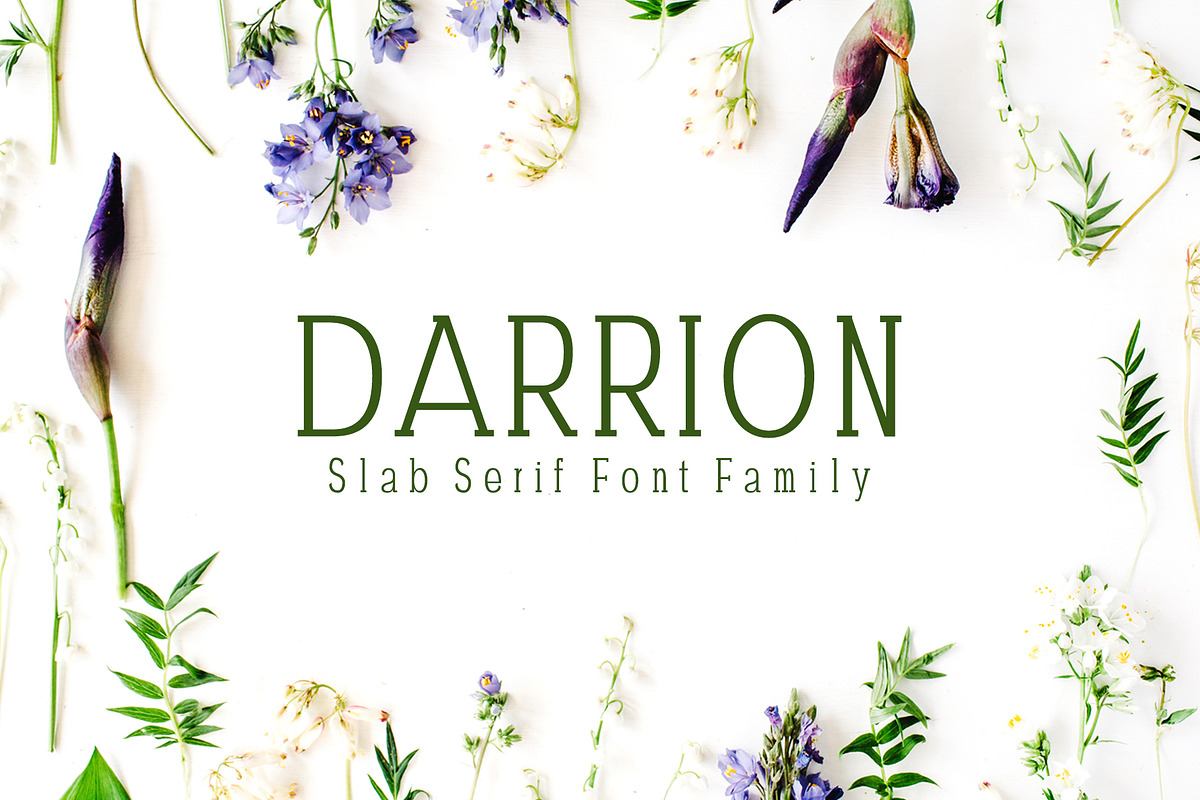
Darrion Slab Serif Font Family Free Download is a versatile and contemporary slab serif typeface designed to bring strength and readability to your designs. Featuring a range of weights, it is perfect for creating powerful headlines, branding, editorial layouts, and more. The bold, geometric structure of Darrion gives it a strong visual impact, while its clean lines ensure high legibility.
Whether you're designing a website, crafting a logo, or working on print materials, Darrion’s solid, balanced design makes it an excellent choice for both large and small text. Its versatility across various weights allows for dynamic typographic compositions.